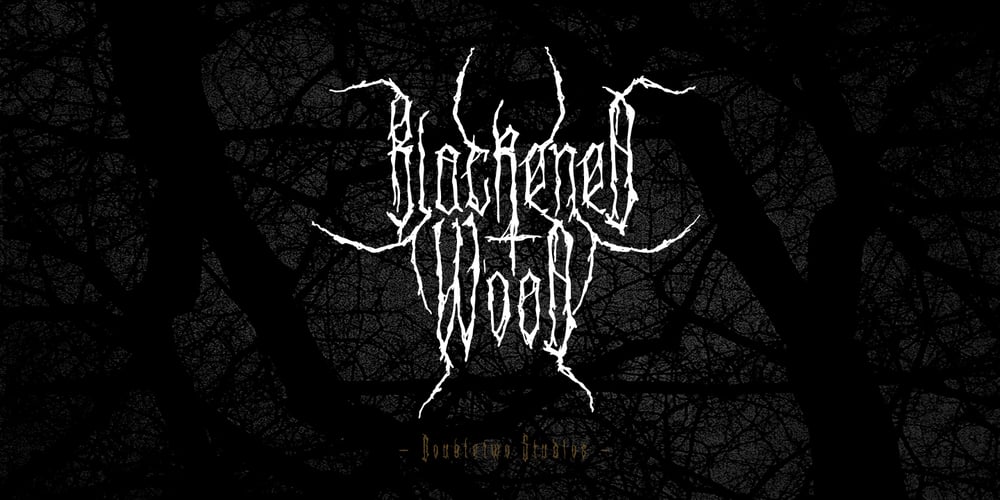
XXII Blackened Wood Font Family was designed by Lecter Johnson and published by Doubletwo Studios. XXII Blackened Wood contains 1 styles and family package options. XXII BlackenedWood is the cheap alternative for you to easy create a logo for your band or whatever. Or you may use it for badly readable texts of evil looking black magic books. It comes with a Latin-Extended-A characterset and a little bunch of symbols and signs often used in the extreme music sector – classical occult stuff from Death- and Blackmetal like pentagrams and crosses, drips… For detailed information check out PDF in the gallery.